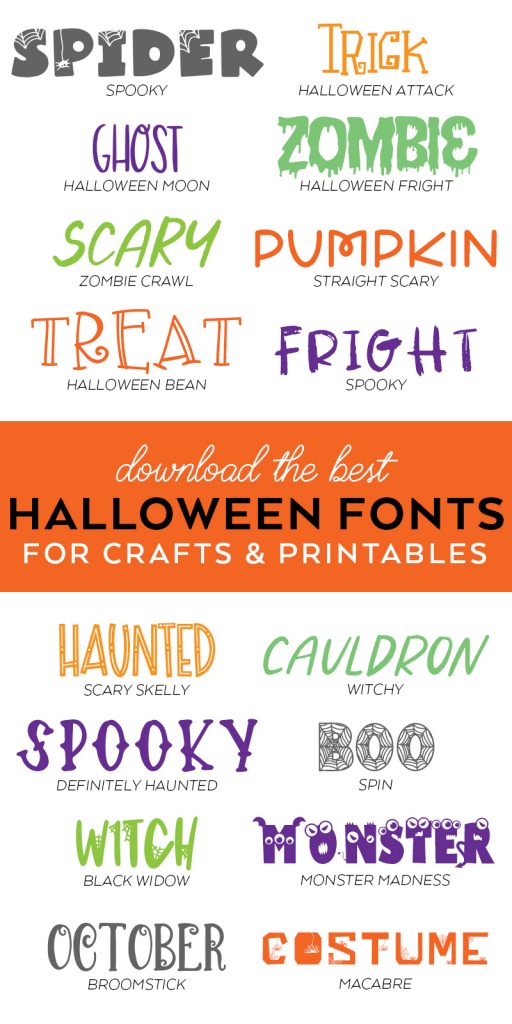
Halloween Fonts for Crafts and Printables
Are you busy making Halloween crafts? Bored with the fonts you are using with your Cricut or Silhouette? Try some brand new Halloween fonts that include commercial licenses! They are perfect for all of your cute and scary DIY projects and printables for Halloween!
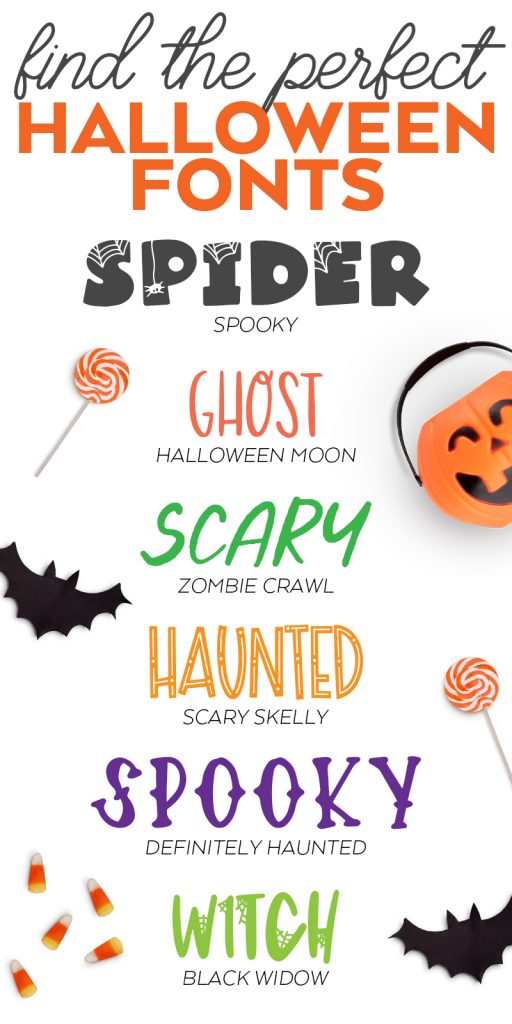
The Best Halloween Fonts
I absolutely love making crafts and printables for Halloween. We decorate our whole house and throw a big Halloween party every year! I’m always looking for new Halloween fonts to use with my Cricut machine, and today I’m sharing some of my new favorites!
Halloween fonts are always fun and creative, which is why I found SO many that I love. From character fonts to classic fonts that can be used all year, and cute or scary fonts, there’s something for everyone!
Halloween Fonts to Download
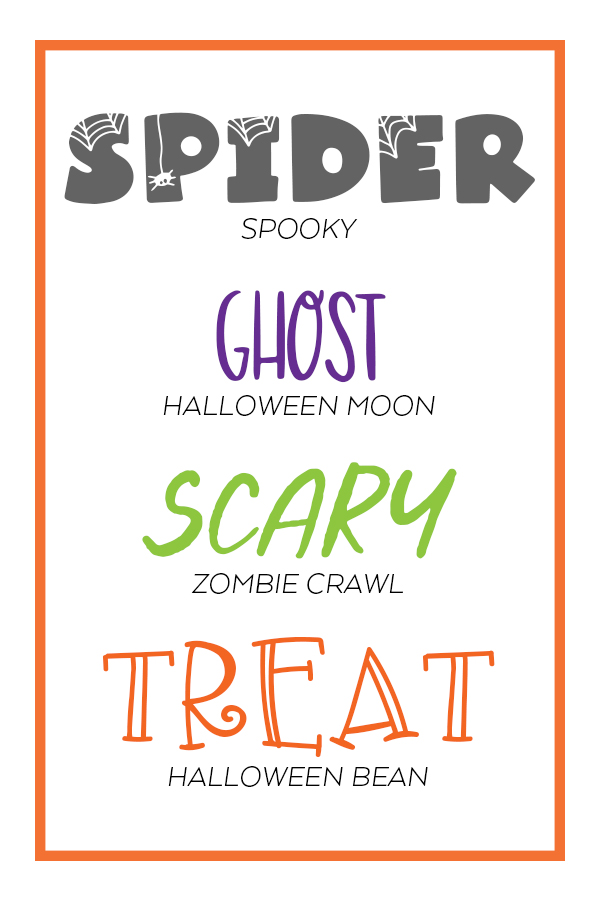
- Spooky
- Halloween Moon
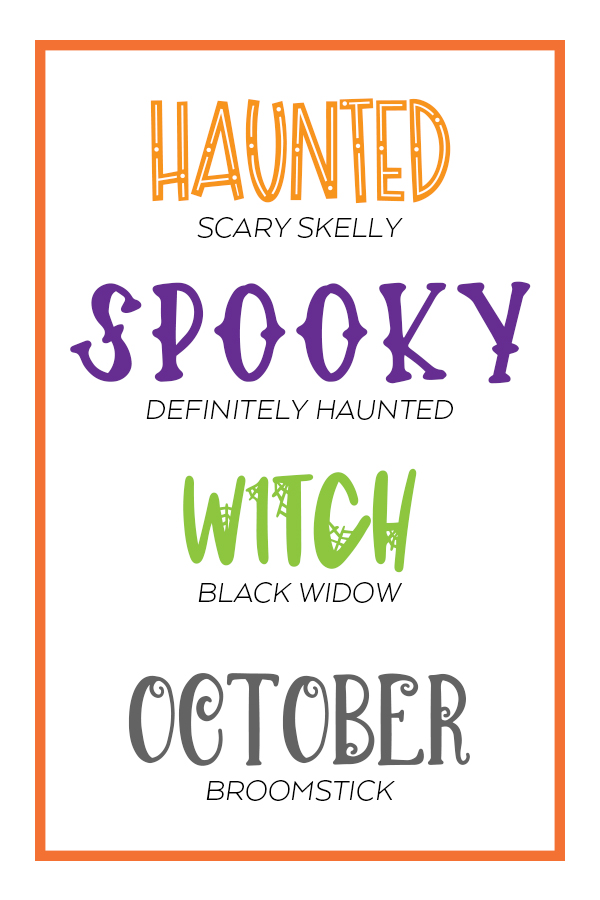
- Scary Skelly
- Black Widow
- Broomstick (comes with doodles, too!)
Commercial Use Halloween Fonts
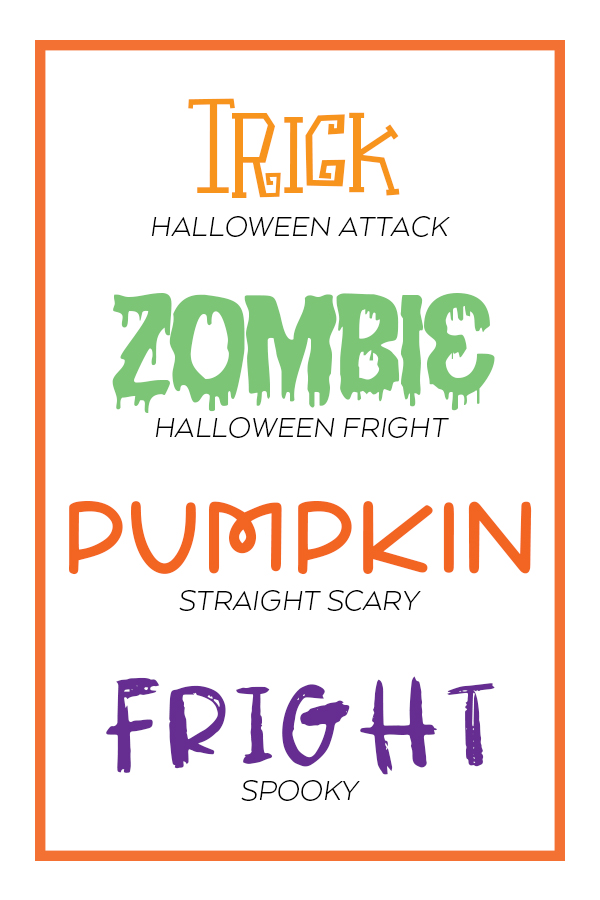
- Halloween Fright
- Straight Scary
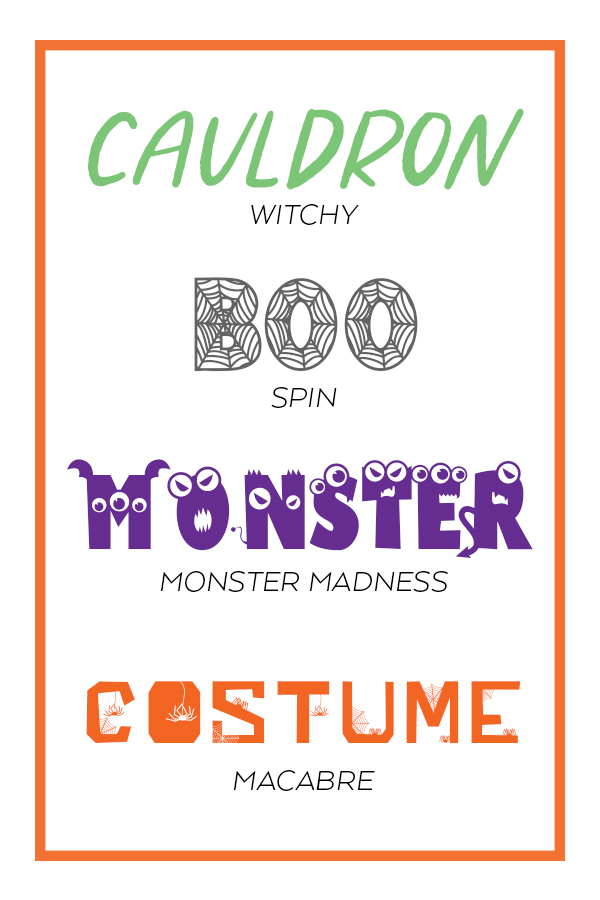
- Witchy
- Spin (perfect if you love mandalas!)
- Macabre (comes with 3 fonts that you can combine for cool font effects!)